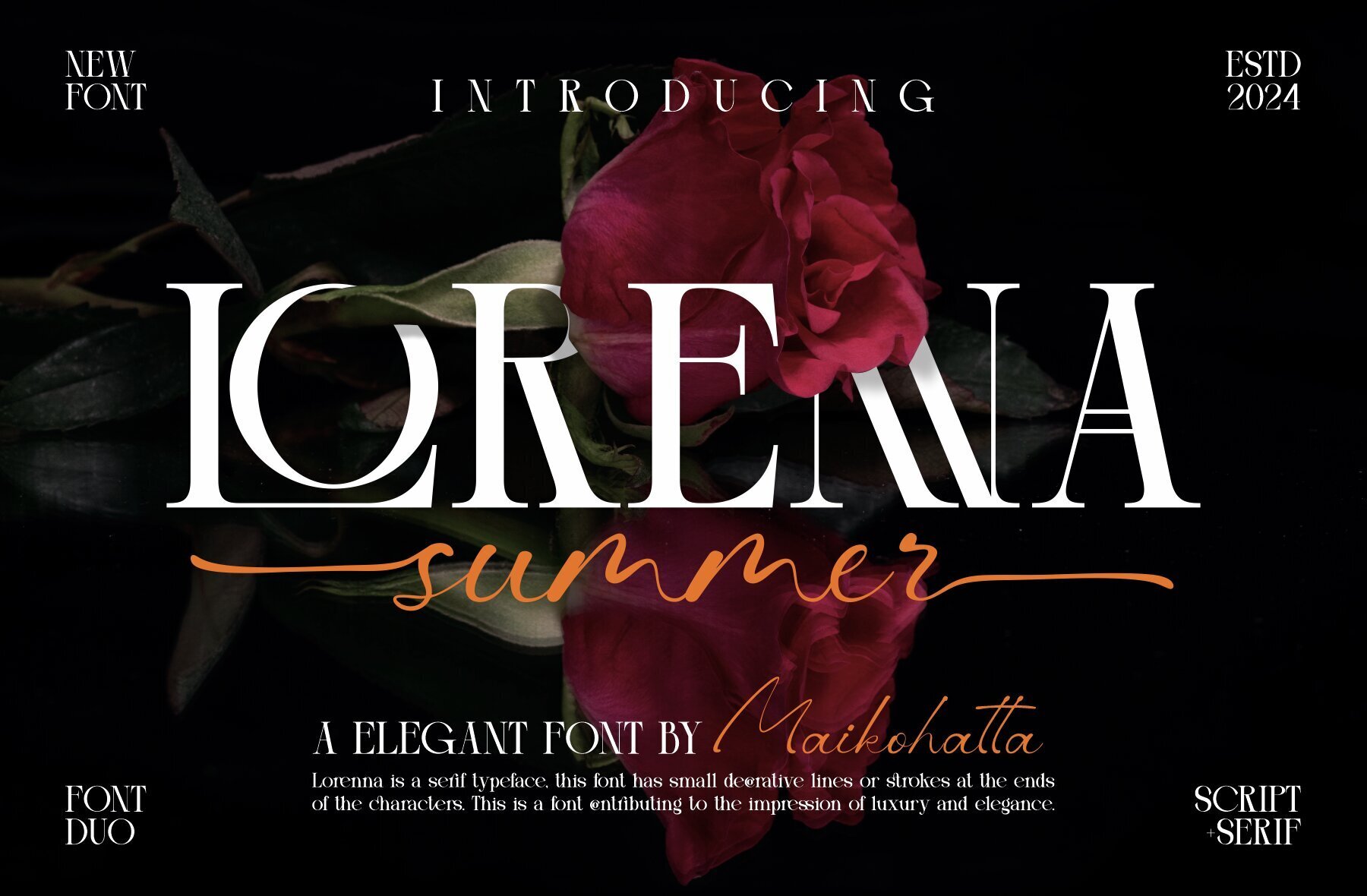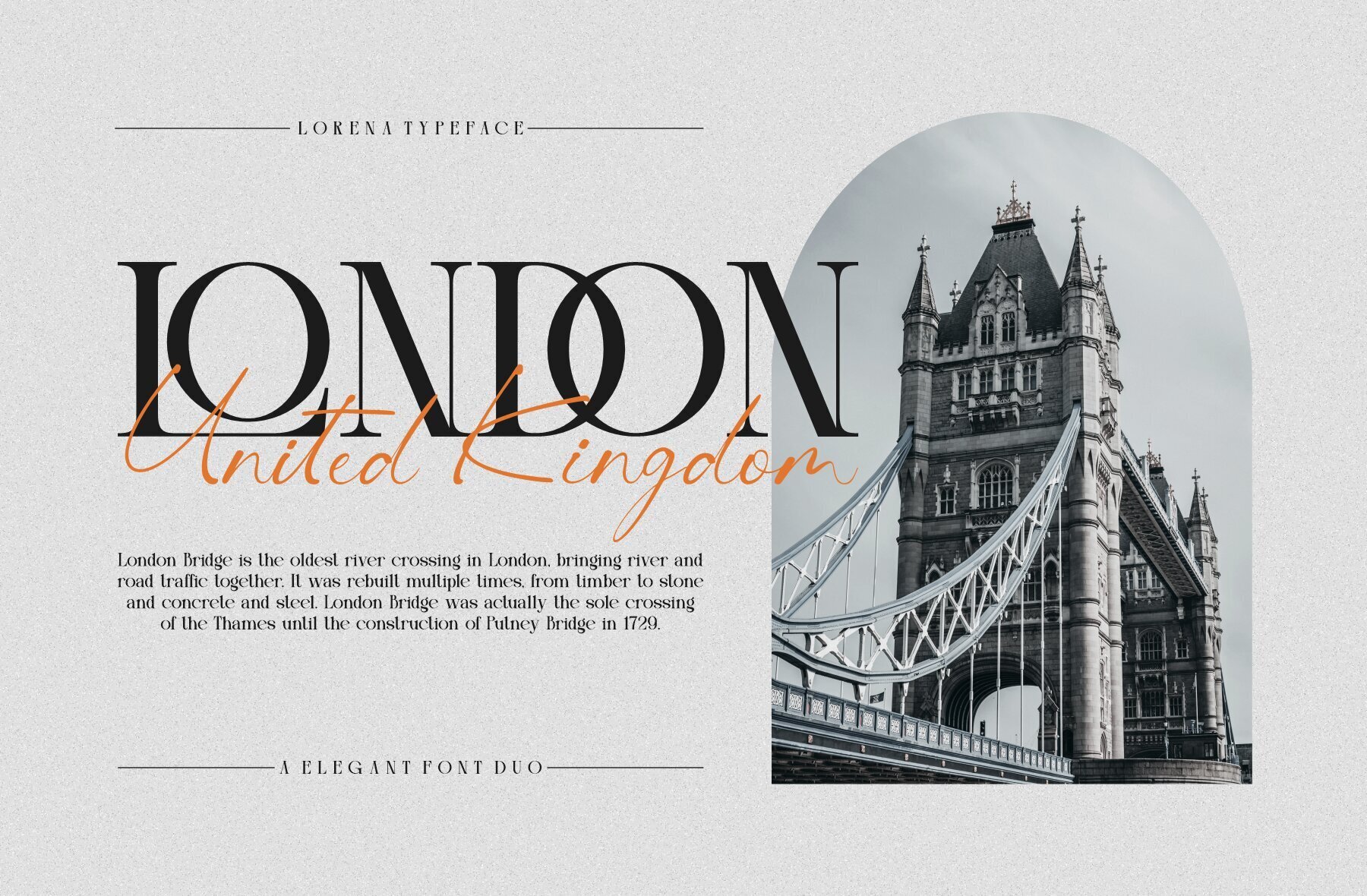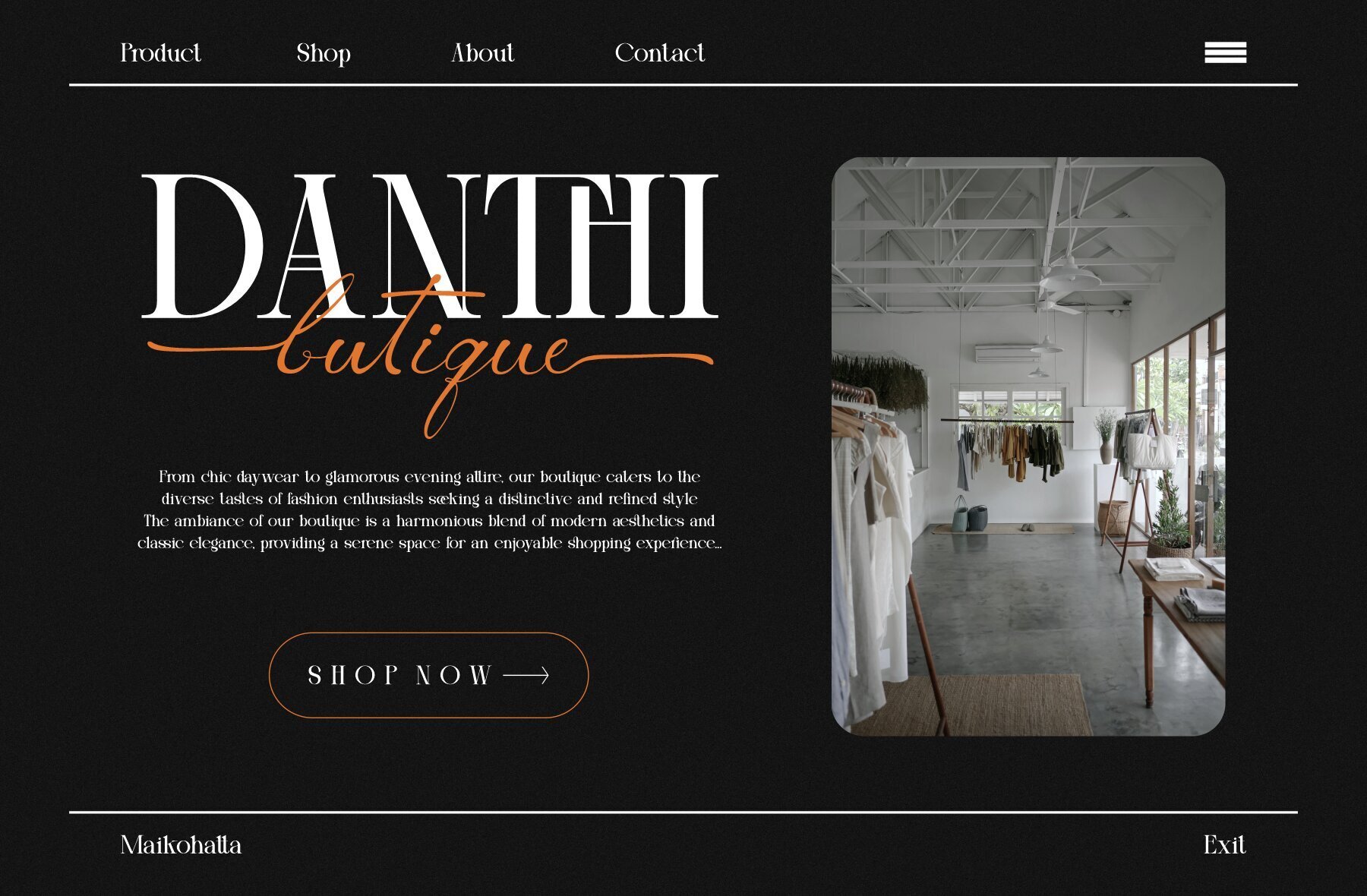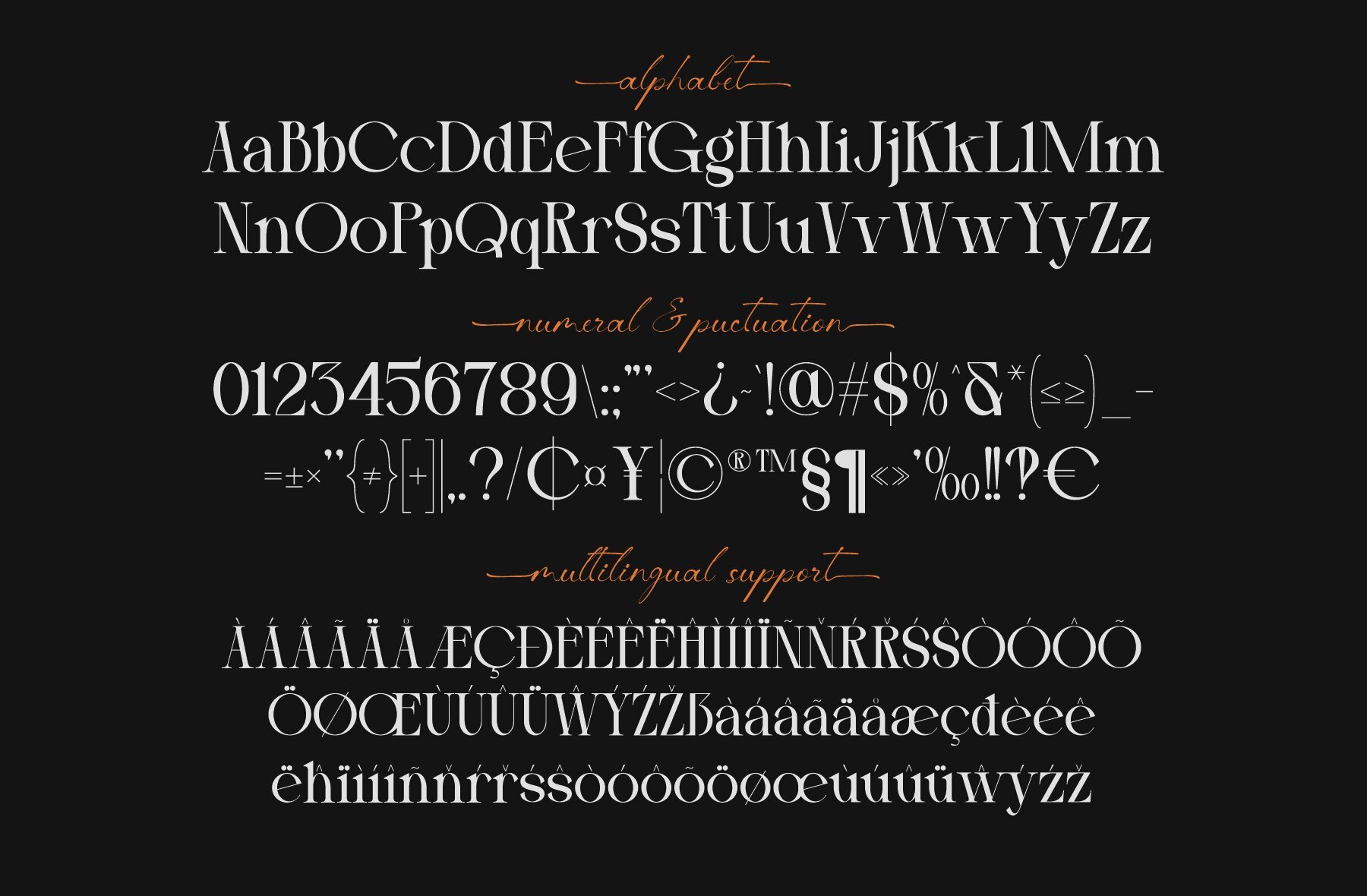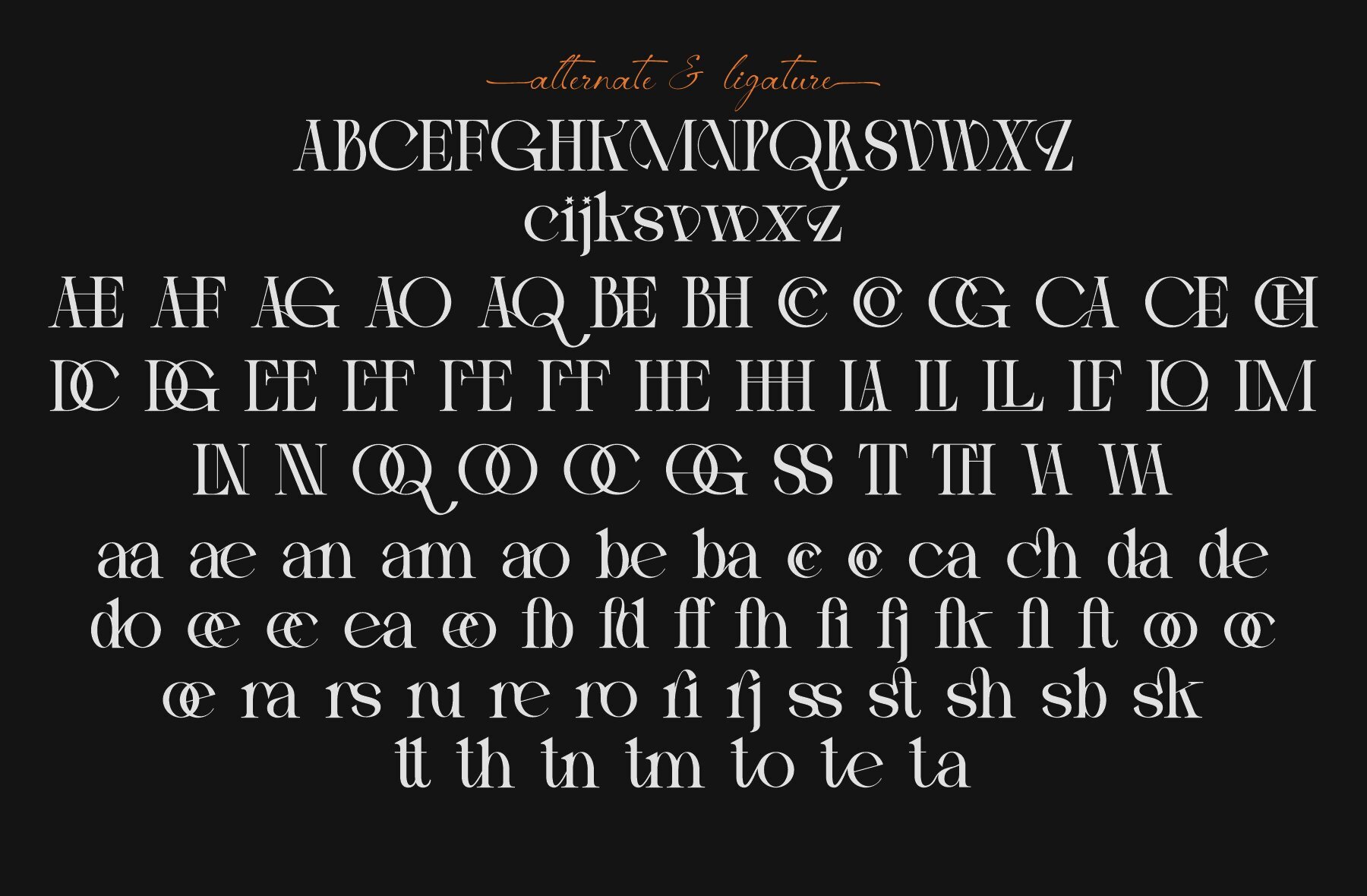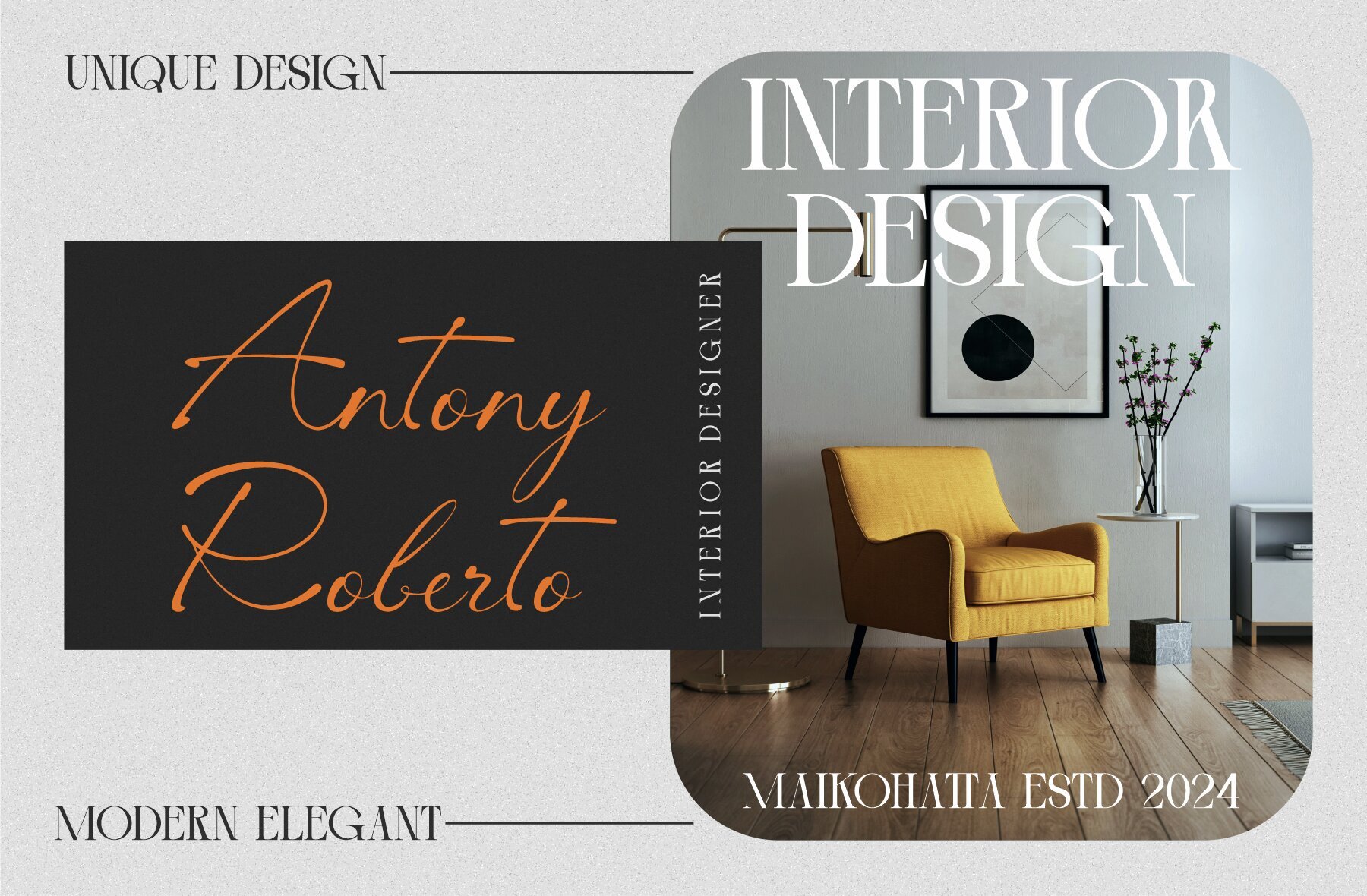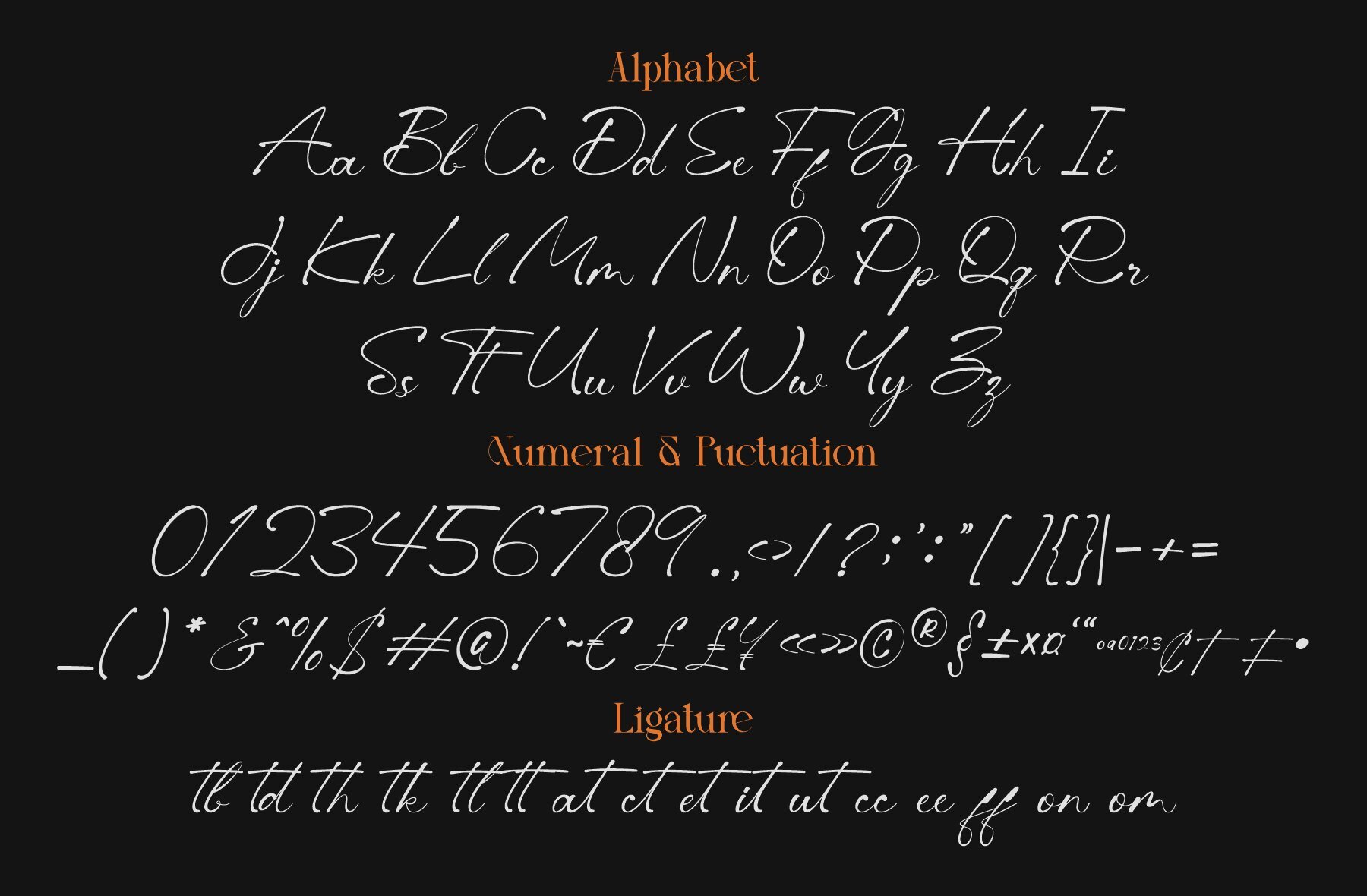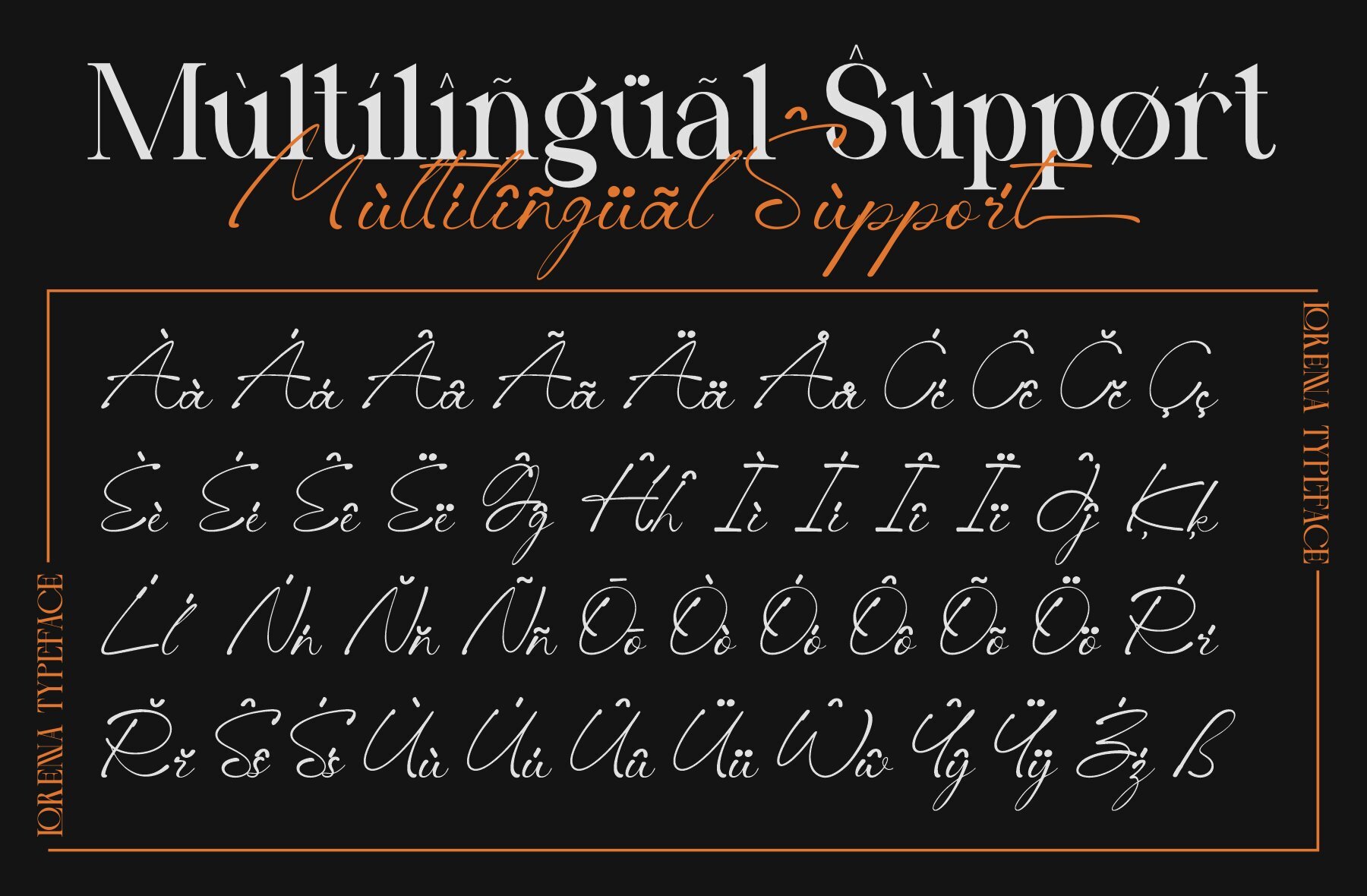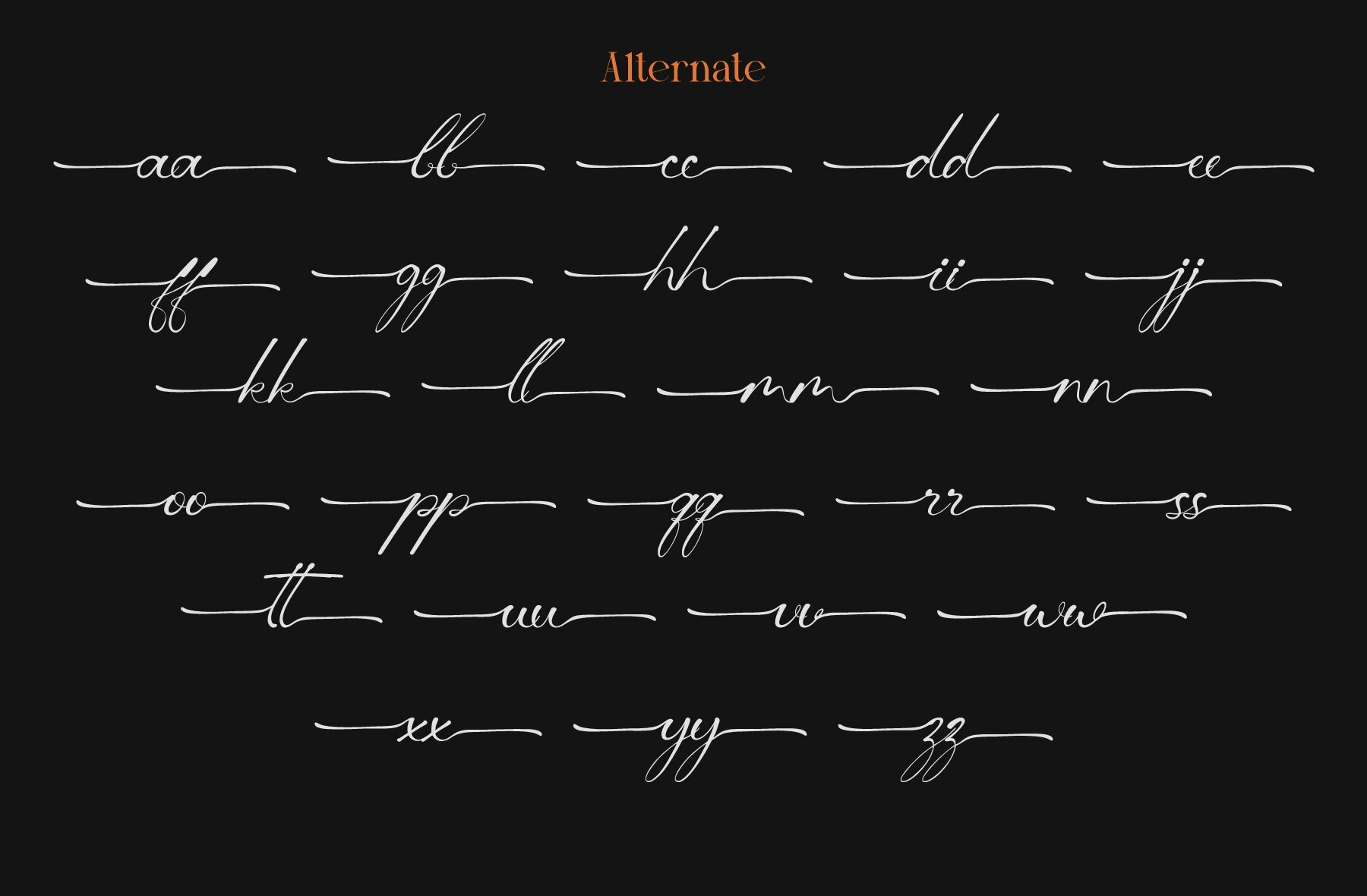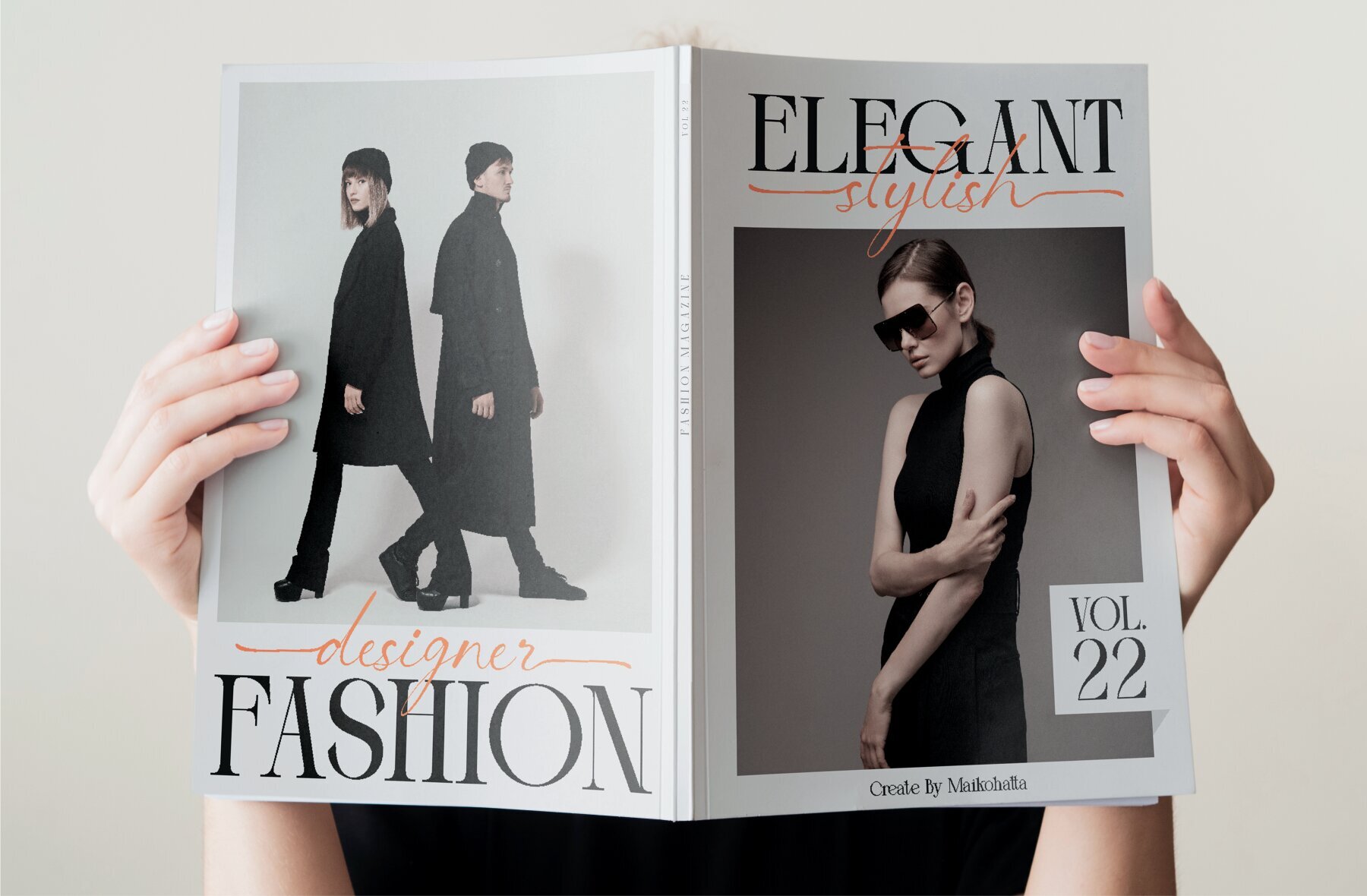
Lorenna Font
Introducing Lorenna, an elegant duo font that merges the structured sophistication of serif fonts with the creative flair of script handwriting. This unique combination offers a visually striking contrast that is perfect for various design needs. Whether you're crafting formal invitations, brand promotional materials, books, greeting cards, logos, web designs, or presentations, Lorenna delivers a harmonious blend of elegance and warmth, making your messages stand out with a uniquely captivating style.
Lorenna's versatility is enhanced by its features, including uppercase and lowercase letters, multilingual support, alternates, and ligatures. This flexibility allows you to adapt the font for a range of projects, maintaining a balance between formal and personal aesthetics. Lorenna is the ideal choice for designers seeking a font that adds both structure and a touch of creativity to their work, ensuring an engaging and polished final product.